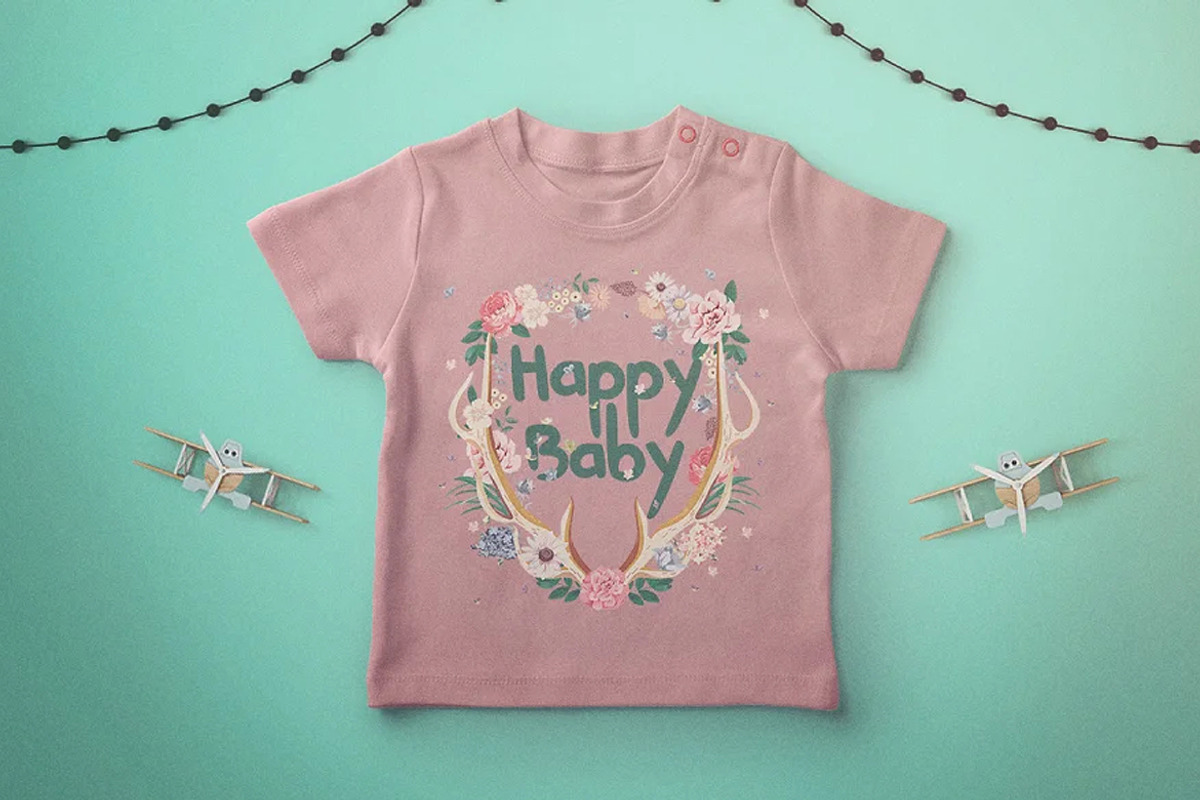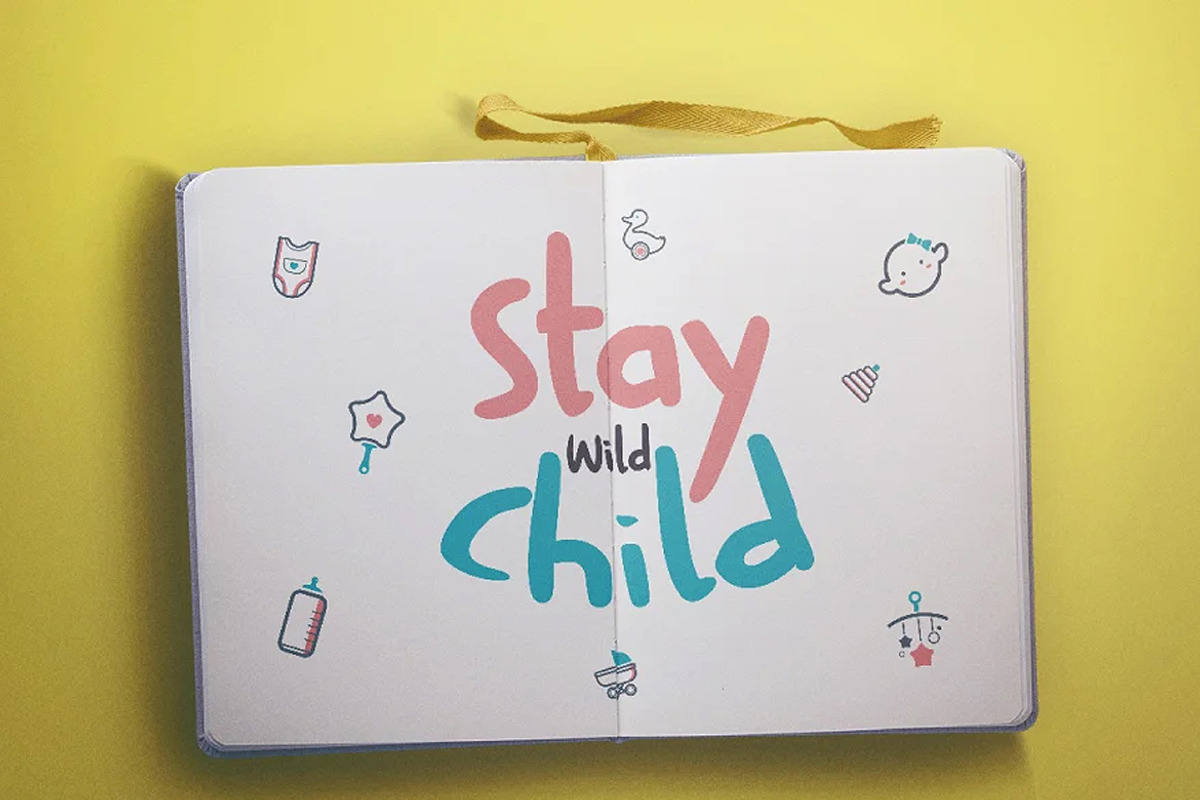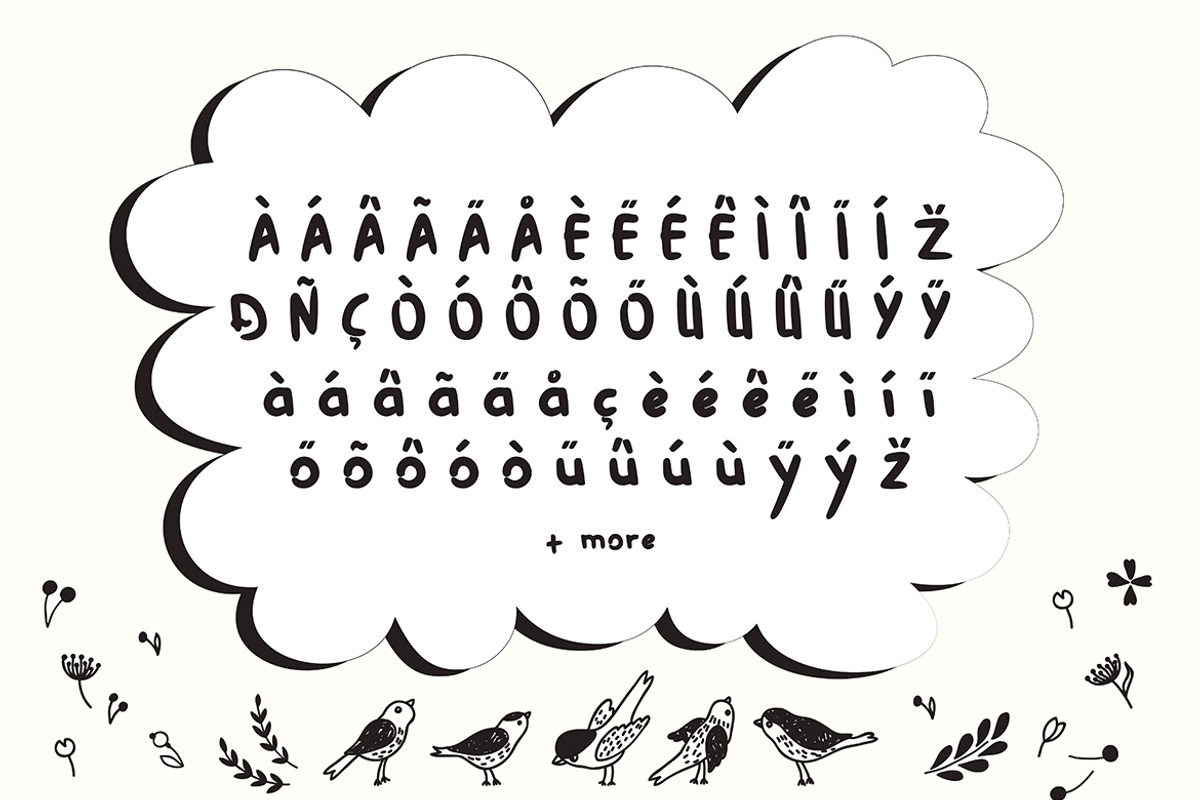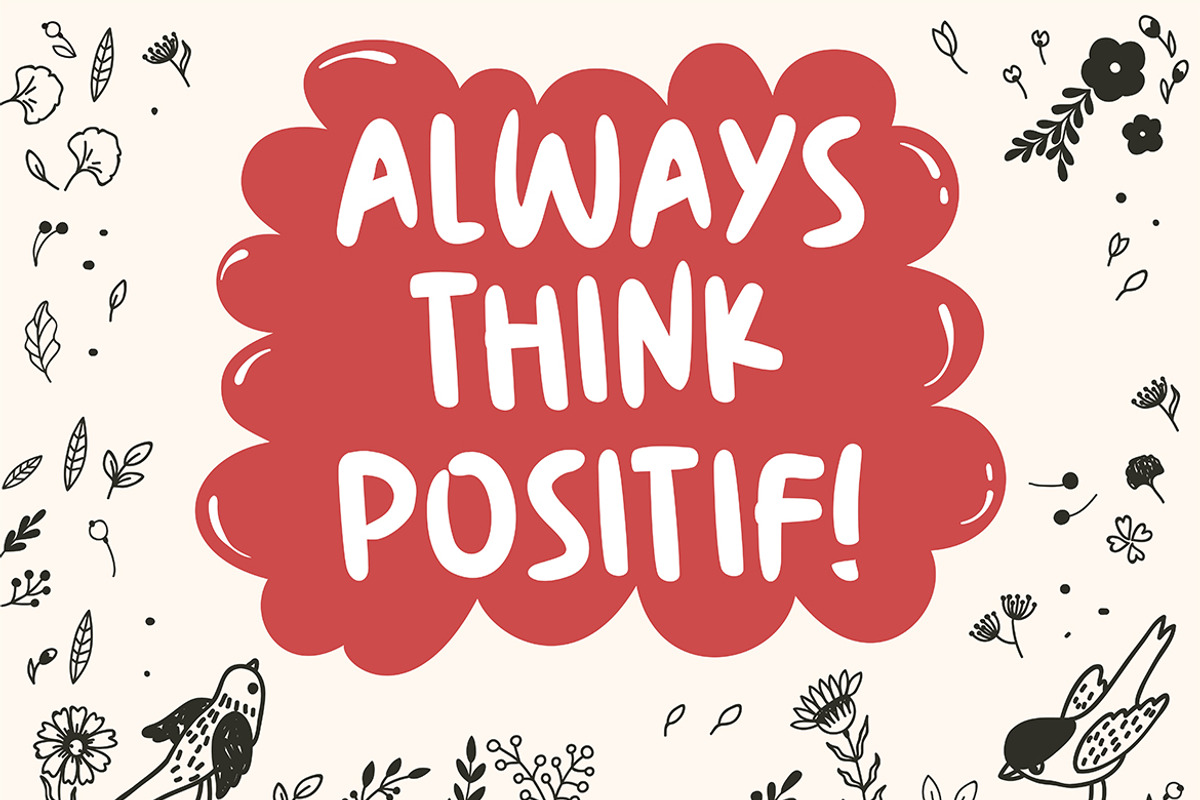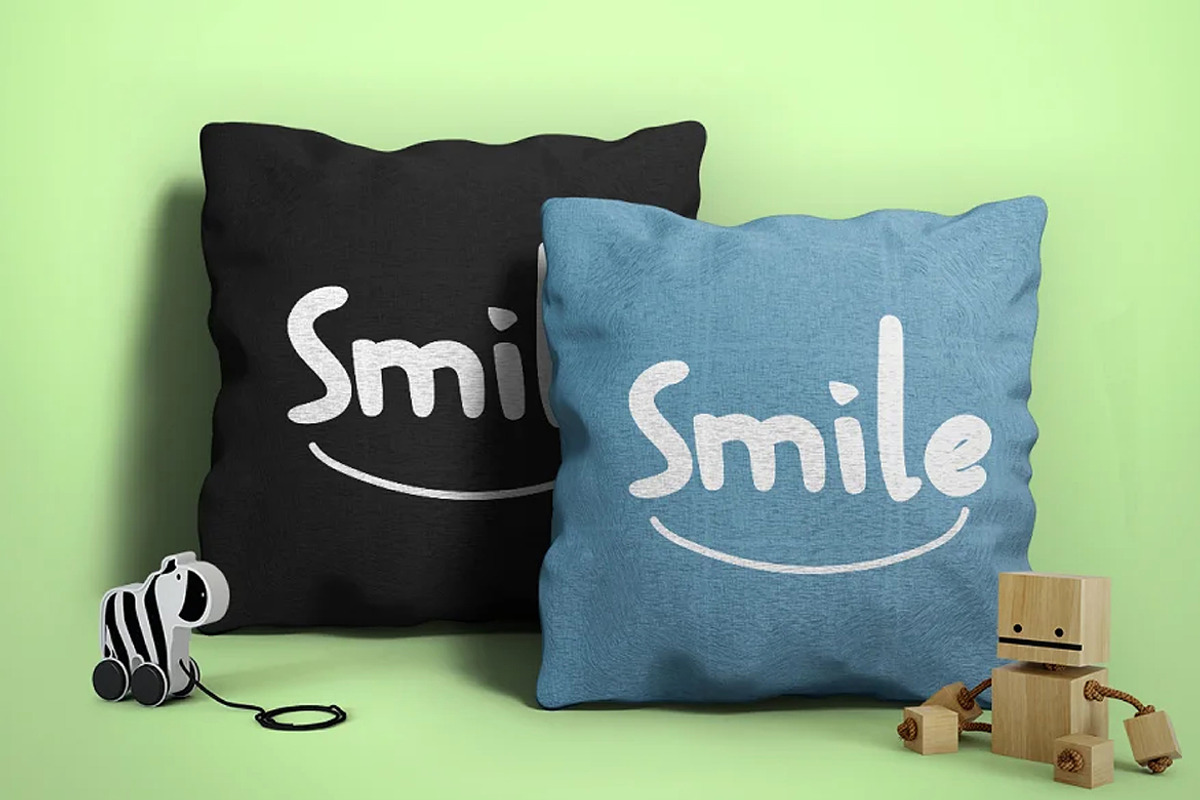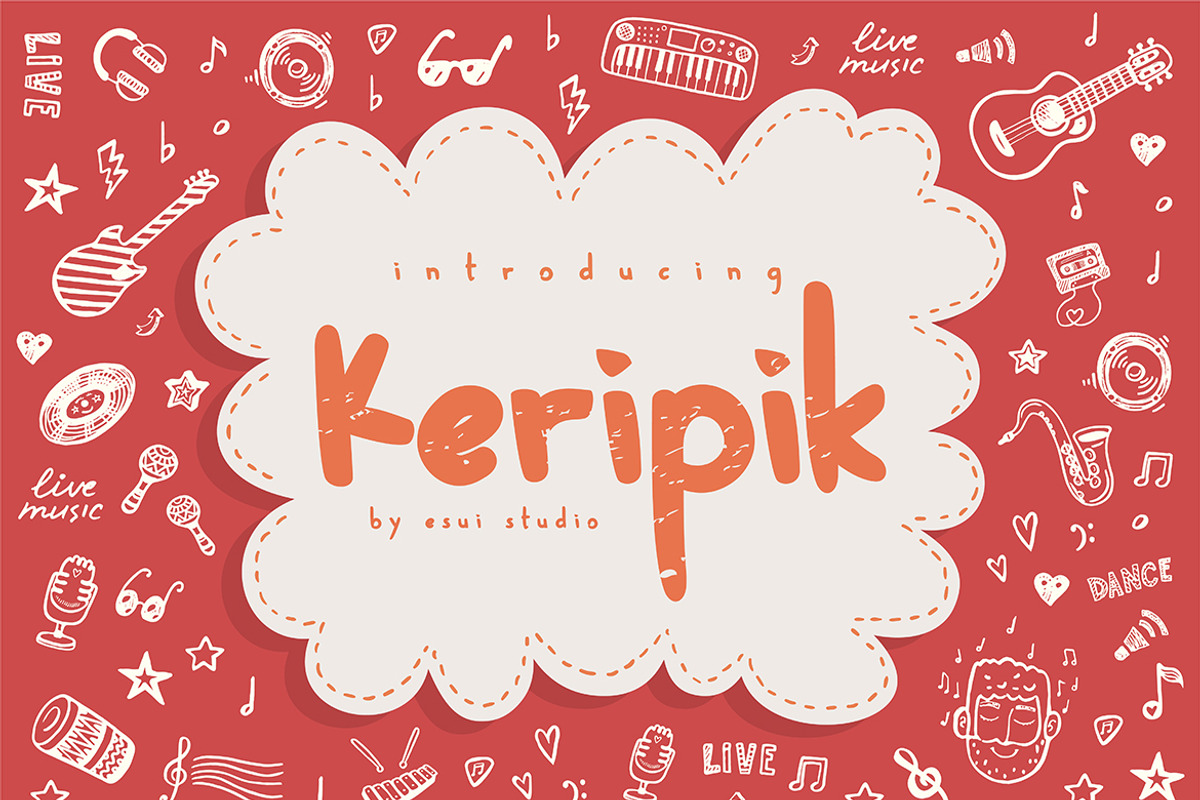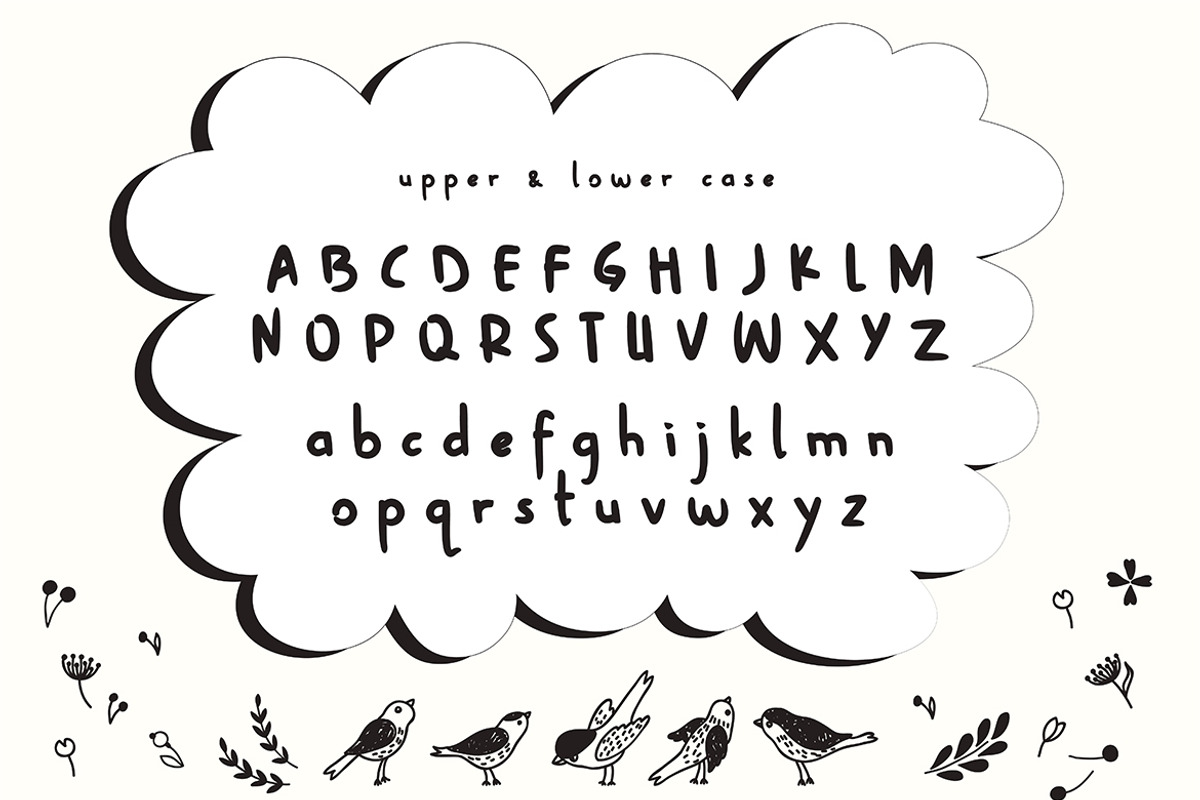
Keripik
Garbed in bright and colorful robes, Keripik is the child god governing the fun of all children in the land of Sukarnia. When any child feels sad and down, Keripik will pay a visit to cheer them up. Forever happy and absolutely lovable, Keripik never fails to bring a smile to any child’s face. Keripik font family features uppercase, lowercase, punctuation, and numerals.